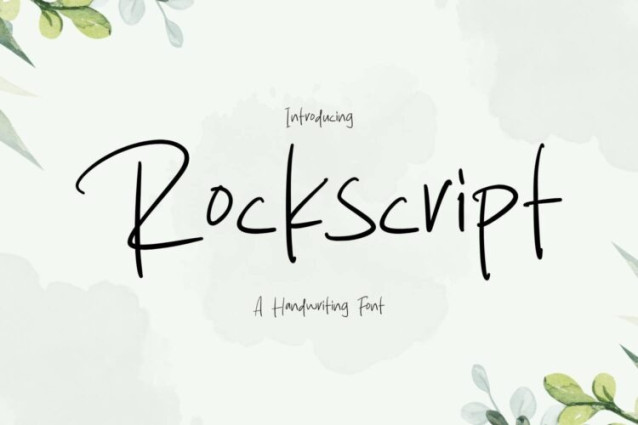
Rockscript Font
Rockscript Font is a simple and friendly handwritten font. Its natural and unique style makes it incredibly fitting to a large pool of designs. The only limit is your imagination!